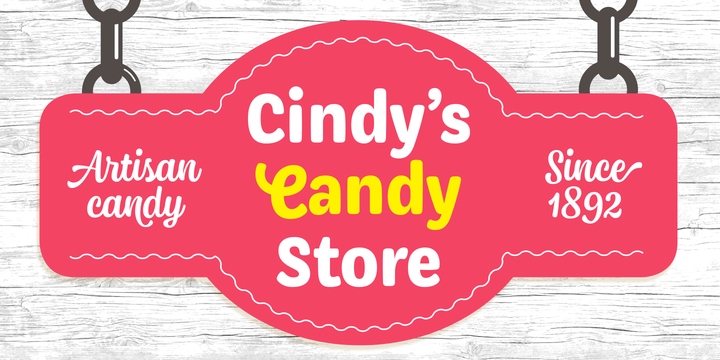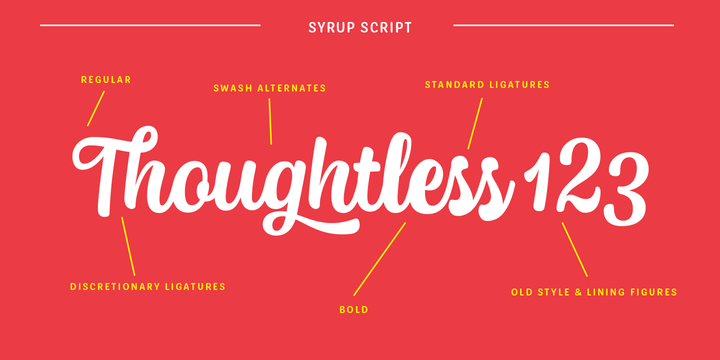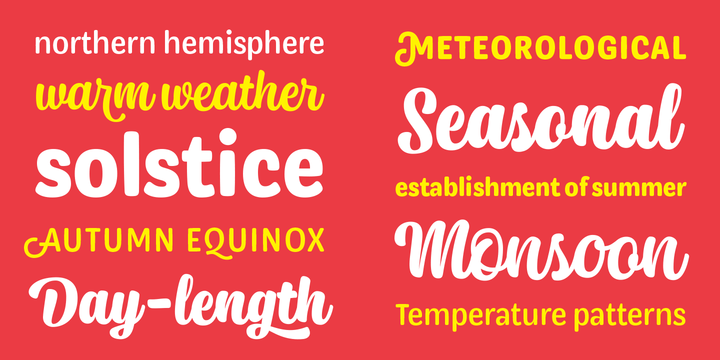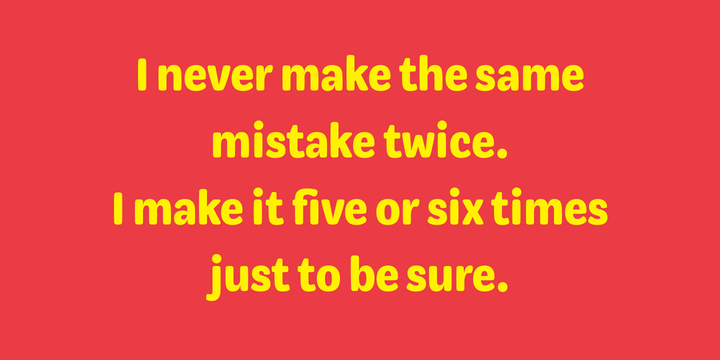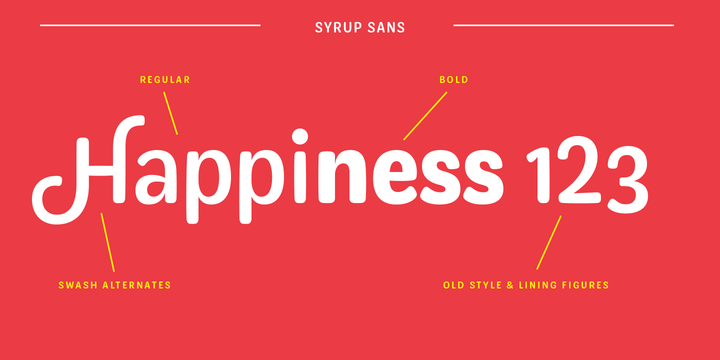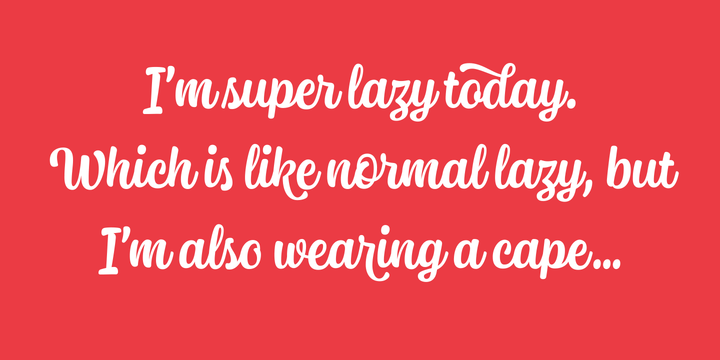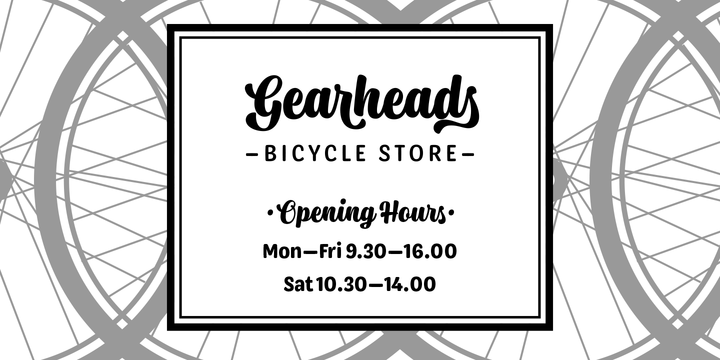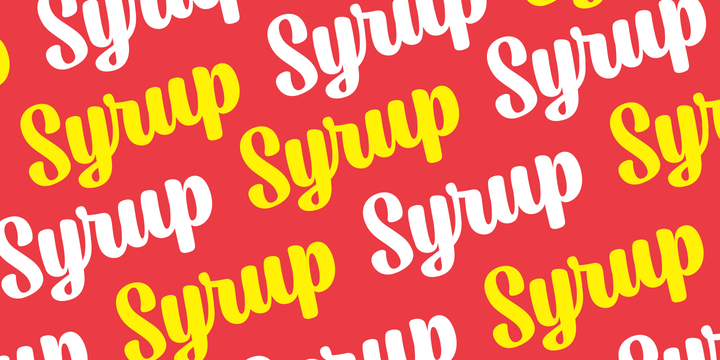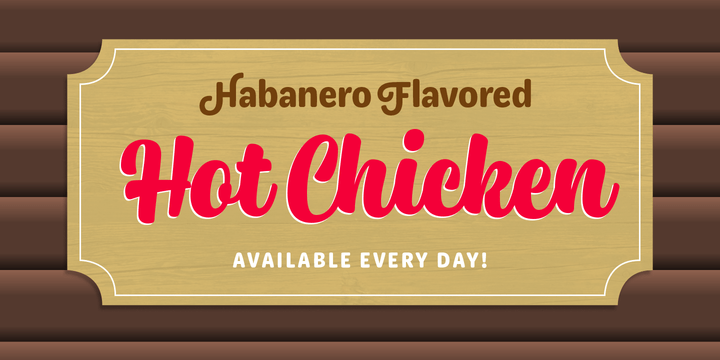
Syrup
Syrup is a friendly, subtly rounded type family combining sans and script styles. It's aesthetic roots are in the sign painting of the 1950's but the execution is distinctly modern.
The different styles are designed to work well together so you can have multiple levels of typography all with the same feeling and aesthetic. Try combining the styles in different ways for maximum impact.
All styles are packed with Opentype features to enable flexible customisation of your design and the font is especially well suited for branding and packaging typography.